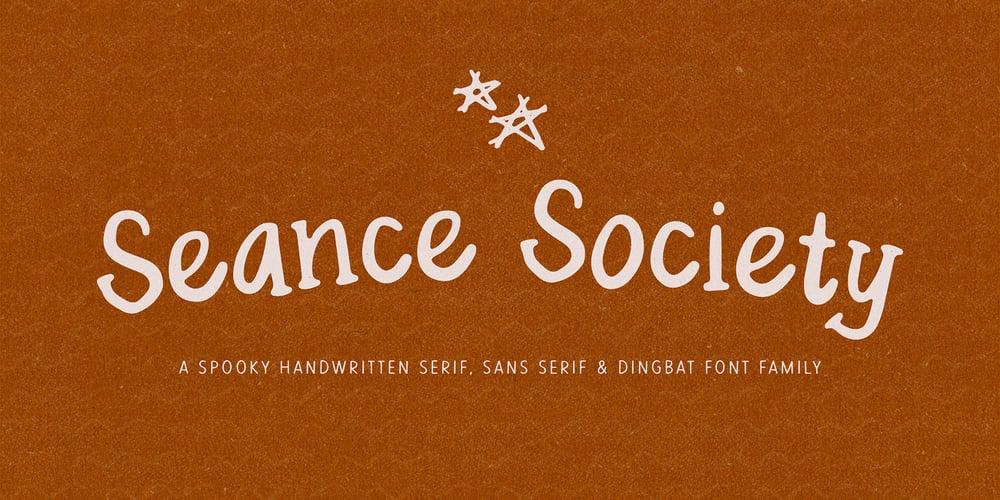
Seance Society
Seance Society font
Seance Society Font Family was designed by Mikko Sumulong and published by Mix Fonts. Seance Society contains 3 styles and family package options. SEANCE SOCIETY Summon the perfect vibe for your next project with SEANCE SOCIETY, a versatile font trio designed for the spooky, the mystical, and the magically inspired. This font family blends eerie elegance with cosmic charm, including—Font Styles: SEANCE SOCIETY: A hauntingly elegant serif, ideal for adding a spellbinding touch. SEANCE SOCIETY X (SANS): A clean, understated sans that pairs effortlessly with the serif for seamless versatility. SEANCE SOCIETY O (DINGS): A curated collection of 72 hand-drawn mystical symbols—crescent moons, cauldrons, crystals, stars, and more—adding an extra dose of enchantment to your designs. Features: Designed for raw, personal projects, Seance Society thrives in Halloween, witchy, and cosmic themes. The dingbat set amplifies your creative potential with symbols perfect for adding mystic flair.Uses:Whether crafting eerie merch, spellbinding branding, or Halloween invitations, Seance Society is your go-to for posters, t-shirts, logos, packaging, social media graphics, book covers, spell books, greeting cards, and more.What’s Included: SEANCE SOCIETY X (SANS) SEANCE SOCIETY O (DINGS) Styles: 3 Fonts: Serif, Sans, and Dingbats Multilingual support with accented glyphs SEANCE SOCIETY helps you summon the perfect touch of mystery and magic for all your creative projects. Embrace your inner magic, one letter at a time.SEANCE SOCIETY comes with the following glyphs: ABCDEFGHIJKLMNOPQRSTUVWXYZ abcdefghijklmnopqrstuvwxyz 0123456789 !@#$%^&*()~♥❤✿•· .,:;’”|/?{}[]“”‘’-–—_÷×+−±≈=≠≥≤∞µ …‚„©®™‹›«»°¹²³ªº¡¿₱¢€£¥½¼¾¶§№† ÁÀÂÃÄȦÅĂĀĄÆĆĈČĊÇÐĐĎÉÈÊĚËĖĒȨĘḞǴĜǦĠĞḠ ĤȞḦḢİÍÌÎĨÏĪƗĮĴḰǨĹĽŁḾṀŃǸŇÑÓÒÔÕÖŎŌŐØŒṔṖ ŔŘṘŚŜŠŞȘŤṪŦŢȚÚÙÛŨÜŮŬŪŰŲẂẀŴẄẆÝŶŸŹẐŽŻƵÞẞ áàâãäȧåăāąæćĉčċçðđďéèêěëėēȩęḟǵĝǧġğḡ ĥȟḧḣıíìîĩïīɨįĵḱǩĺľłḿṁńǹňñóòôõöŏōőøœṕṗ ŕřṙśŝšşșťṫŧţțúùûũüůŭūűųẃẁŵẅẇýŷÿźẑžżƶþß SEANCE SOCIETY X (SANS) comes with the following glyphs: ABCDEFGHIJKLMNOPQRSTUVWXYZ abcdefghijklmnopqrstuvwxyz 0123456789 !@#$%^&*()~♥❤✿•· .,:;’”|/?{}[]“”‘’-–—_÷×+−±≈=≠≥≤ …‚„©®™‹›«»°¹²³¡¿₱¢€£¥¶§† SEANCE SOCIETY O (DINGS) comes with the following glyphs: ABCDEFGHIJKLMNOPQRSTUVWXYZ abcdefghijklmnopqrstuvwxyz 1234567890 !@#$%^&*()